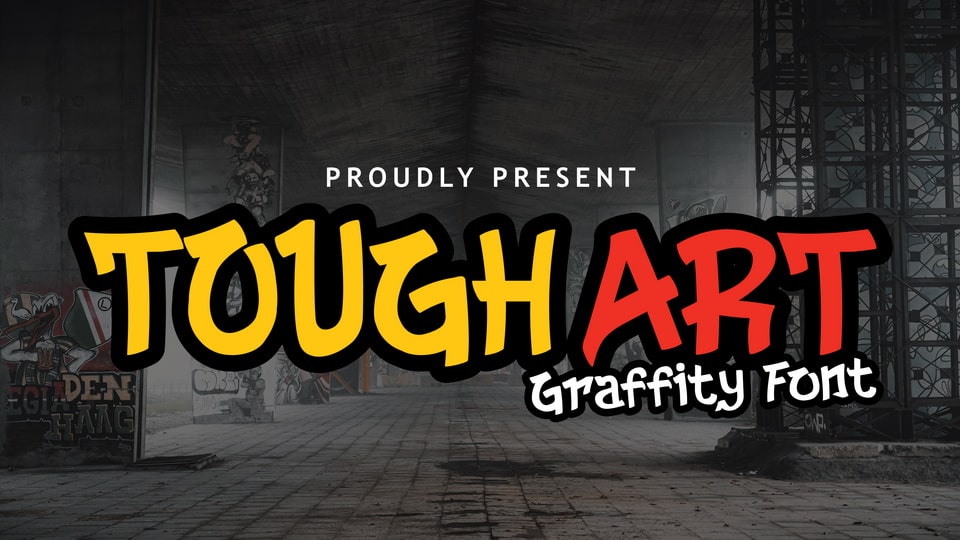
Download Tough Art font, the ultimate graffiti display typeface. If you’re looking for a bold and edgy handwriting font to make a statement, Tough Art is the perfect choice.